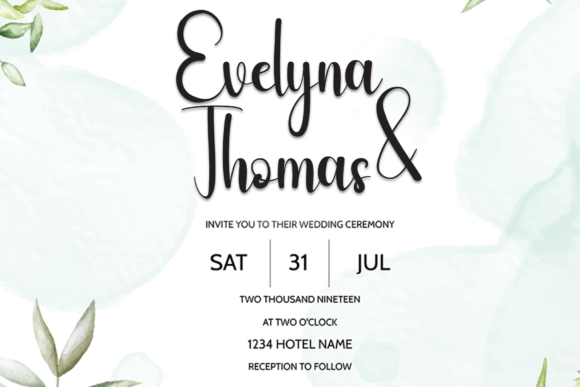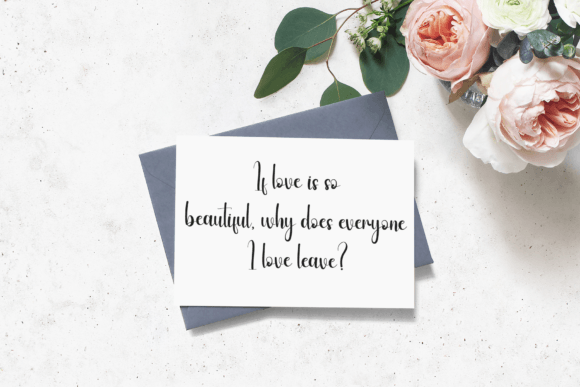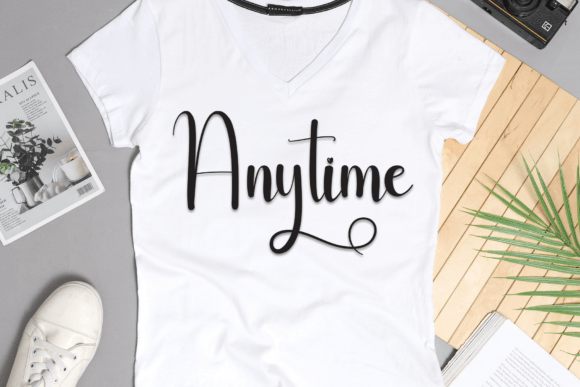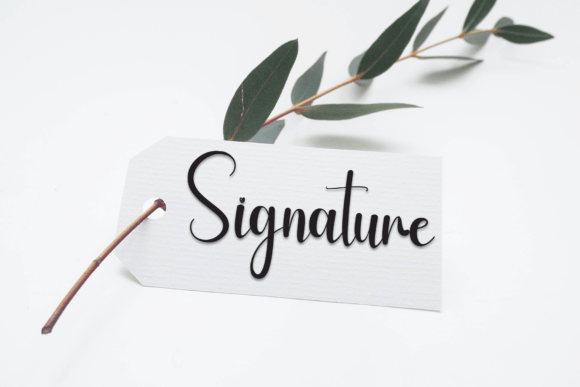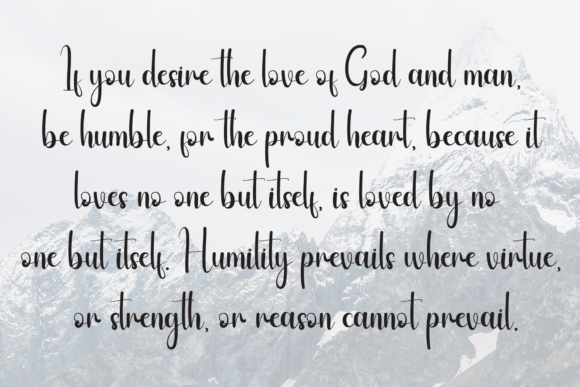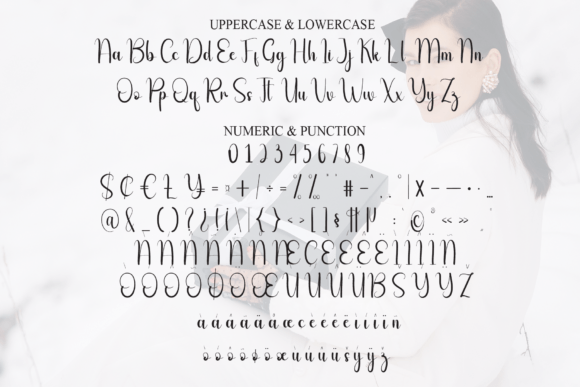
Bring a Touch of Whimsy to Your Designs
As you sit at your desk, surrounded by papers, pens, and creative chaos, you can’t help but feel the urge to craft something truly special. It’s that moment when inspiration strikes, and you envision a beautiful, handwritten font that exudes warmth and personality. This is where the enchanting Angela Winter Font comes in – a delightful blend of sweetness and affability that’s sure to captivate your audience.
With its bulbous serifs and gentle swashes, this exquisite font is a designer’s dream come true. Whether you’re crafting tender wedding invitations, expressive greeting cards, or injecting some character into your projects, the Angela Winter Font brings the essence of fun and personal touch to your designs. Its value lies in its ability to make your creations stand out, telling the most engaging stories and leaving a lasting impression.
Angela Winter Font Key Features
- Font Family: Angela Winter is a display font with a unique, elegant design.
- Unique Characteristics: Angela Winter features intricate details, ornate flourishes, and a mix of serif and sans-serif elements, giving it a distinctive, luxurious look.
Angela Winter Font Review
Overall, I’m quite impressed with the Angela Winter Font. It’s a beautifully designed script font that’s perfect for adding a touch of elegance and sophistication to your designs.
- Unique, hand-drawn style that sets it apart from other script fonts
- Excellent legibility, even at smaller font sizes
- Pleasant, flowing connections between letters
- Comes in a range of weights, from light to bold
- Lack of support for languages other than English
- Some characters may not be available in all weights
- May not be suitable for extremely large or complex text
Despite its limitations, I think the Angela Winter Font is a great choice for designers looking to add a touch of sophistication to their work. It’s a beautiful, elegant font that’s perfect for invitations, quotes, and other text-based designs.
The Angela Winter Font is ideal for creative projects, such as:
- Photography and art portfolios
- Marketing materials and branding
For optimal results, use the Angela Winter Font in combination with high-quality images and creative layouts.
Alternatives to Angela Winter Font
Great Vibes is a beautiful, elegant script font perfect for creating a sophisticated and romantic atmosphere. It’s ideal for wedding invitations, love letters, and other occasions where you want to convey a sense of love and passion. Compared to Angela Winter Font, Great Vibes has a more refined and delicate touch, making it a great choice for formal events and high-end designs.
Lobster is a stylish, cursive font that’s perfect for creating a fun and playful atmosphere. It’s ideal for use in headings, titles, and other areas where you want to add a touch of personality and whimsy. Compared to Angela Winter Font, Lobster has a more casual and laid-back feel, making it a great choice for casual designs, social media, and advertising.
Crimson Text is a elegant, modern serif font that’s perfect for creating a sophisticated and professional atmosphere. It’s ideal for use in body text, headings, and other areas where you want to convey a sense of authority and expertise. Compared to Angela Winter Font, Crimson Text has a more formal and traditional feel, making it a great choice for business reports, academic papers, and other formal documents.
Playfair Display is a luxurious, elegant font that’s perfect for creating a high-end and sophisticated atmosphere. It’s ideal for use in headings, titles, and other areas where you want to add a touch of luxury and refinement. Compared to Angela Winter Font, Playfair Display has a more dramatic and opulent feel, making it a great choice for high-end designs, fashion, and luxury brands.